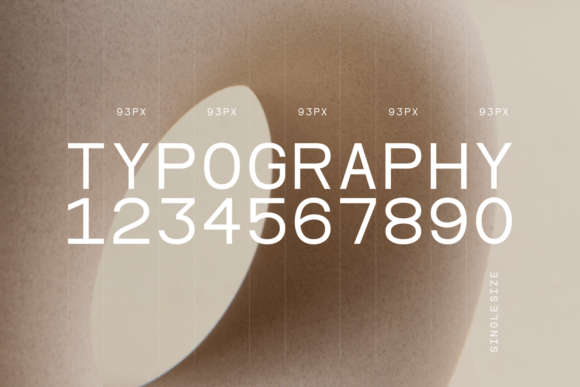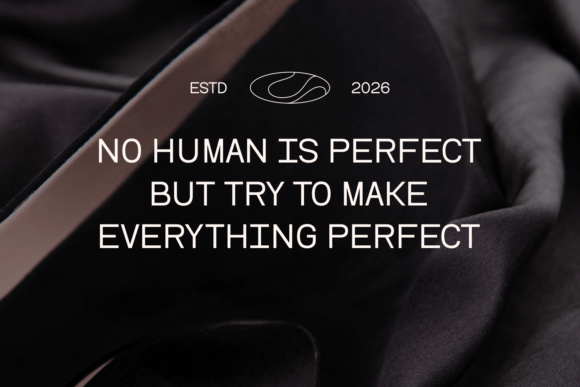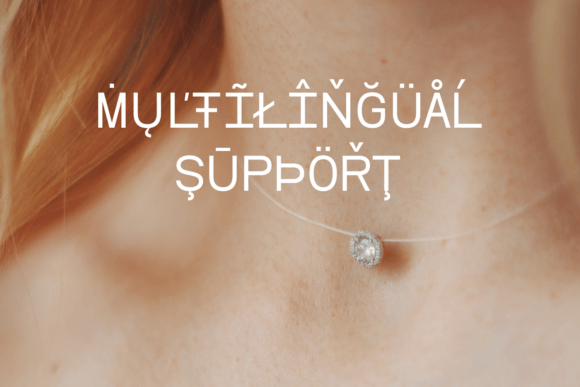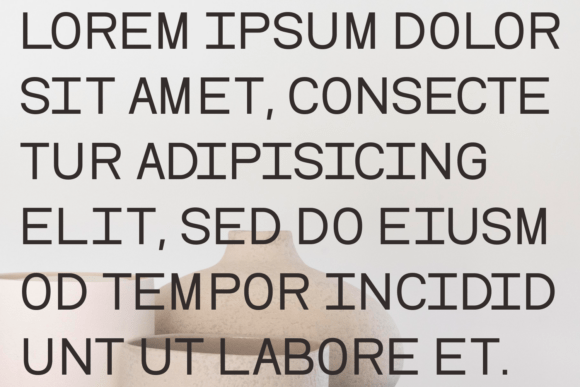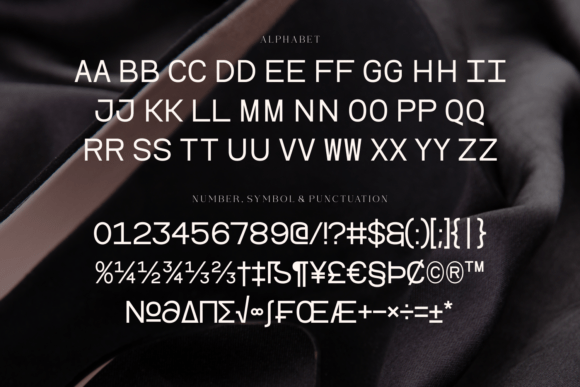
Introduction to Imonospace Font Font
Fonts play a crucial role in design, and the Imonospace Font font is a typeface that brings both character and versatility to any project. Whether you’re working on a branding project, a website, or a print design, the Imonospace Font font offers a unique style that can elevate your work.
The Imonospace font is a simple, single-size font that conveys elegance and nostalgia.
It combines modern and traditional styles .
Key Features of Imonospace Font Font
Why Choose Imonospace Font Font?
The Imonospace Font font is more than just a typeface – it’s a design tool that helps you communicate your message with style and clarity. Its unique character set and versatile design make it suitable for a wide range of applications, from elegant invitations to bold headlines.
With its carefully crafted letterforms and balanced proportions, the Imonospace Font font ensures readability and visual appeal across all mediums.
What makes Imonospace Font font special?
The Imonospace Font font stands out with its unique design, exceptional readability, and versatility across various design applications.